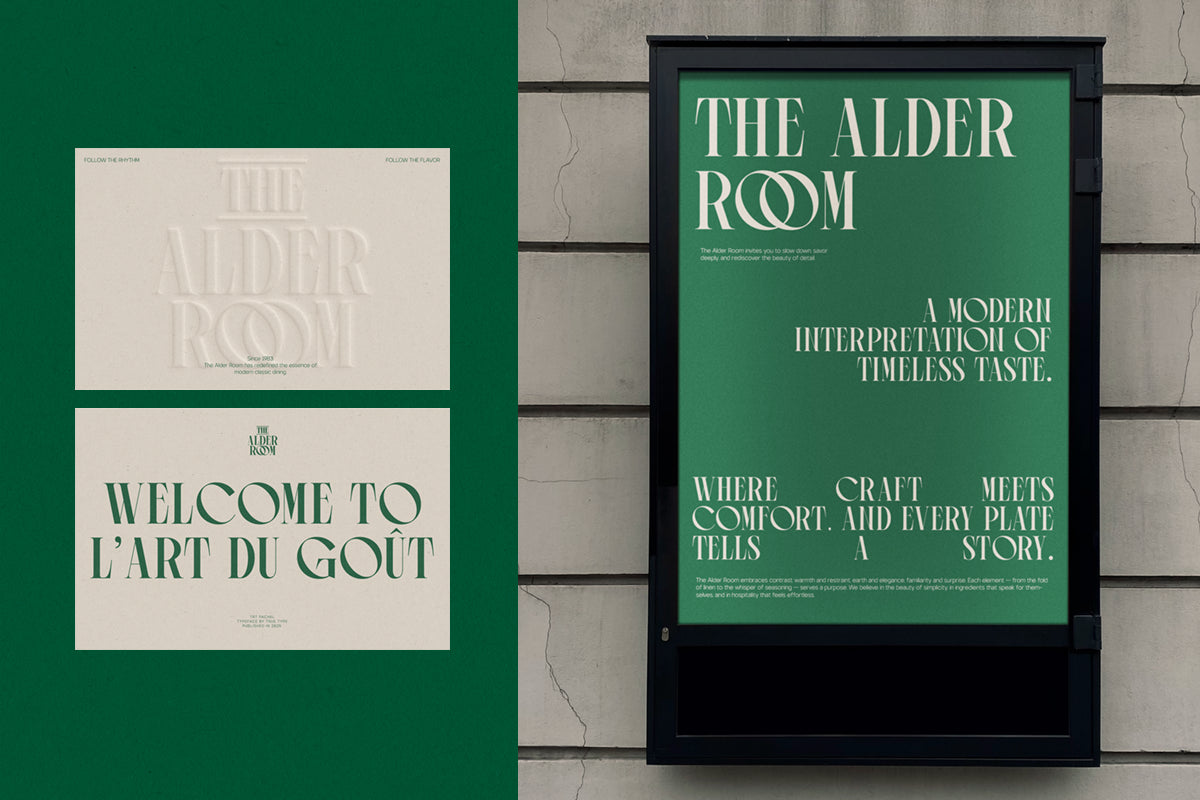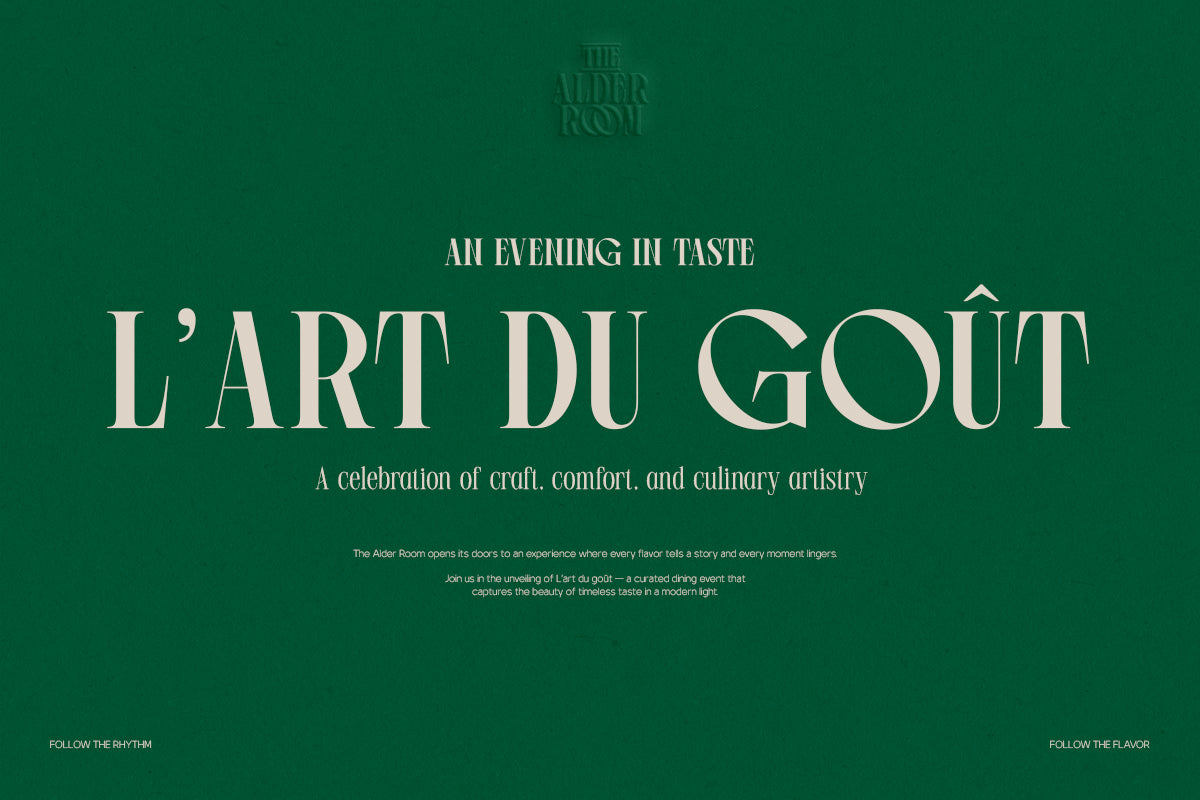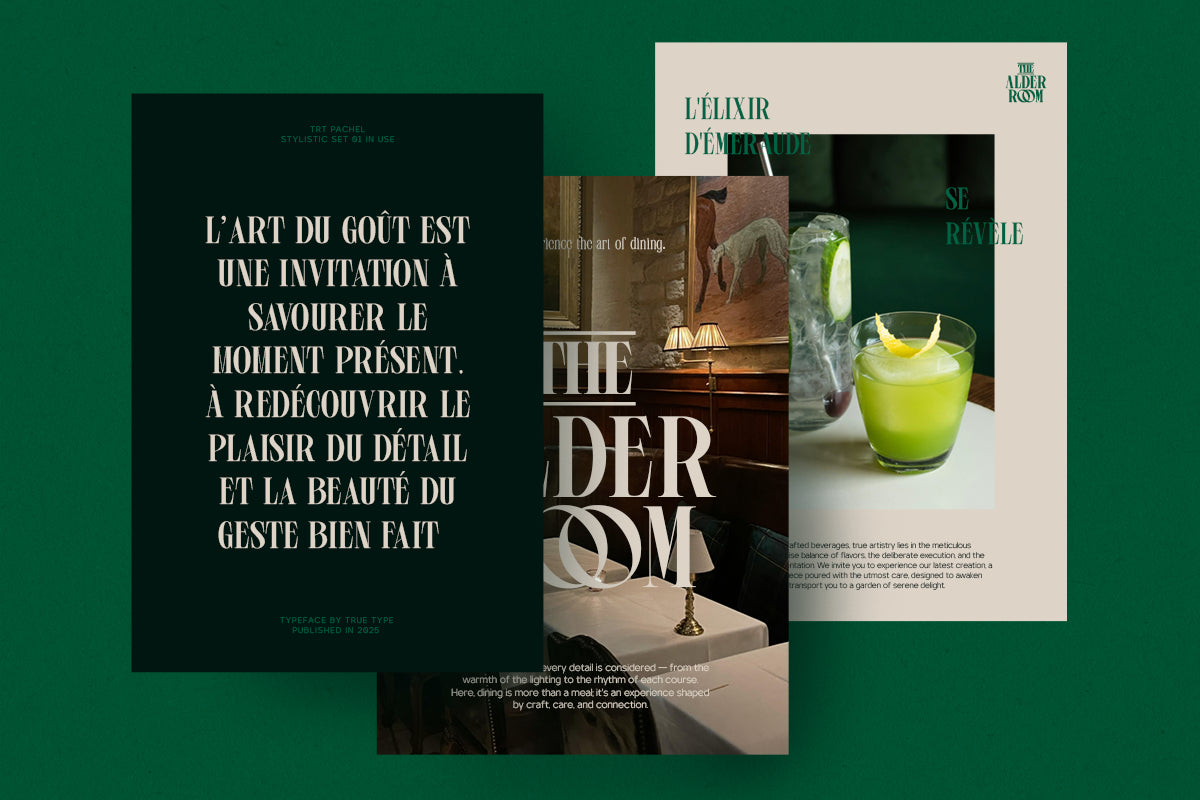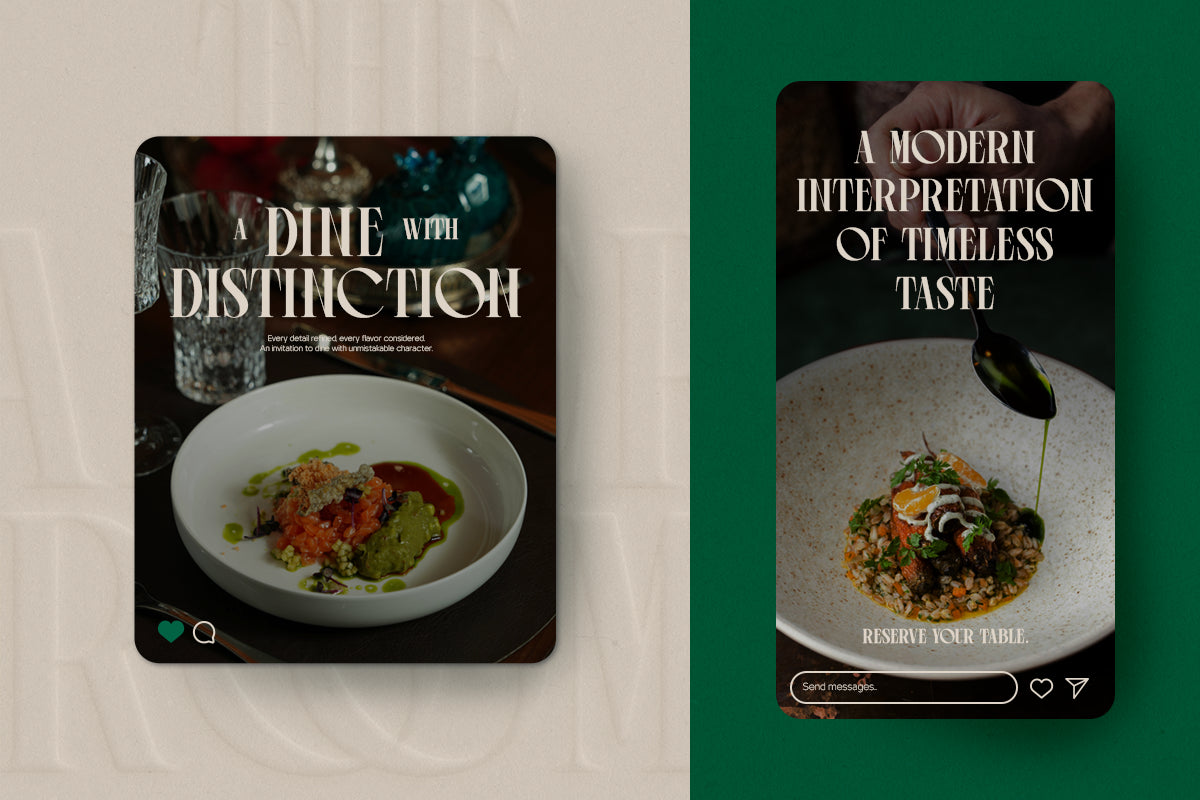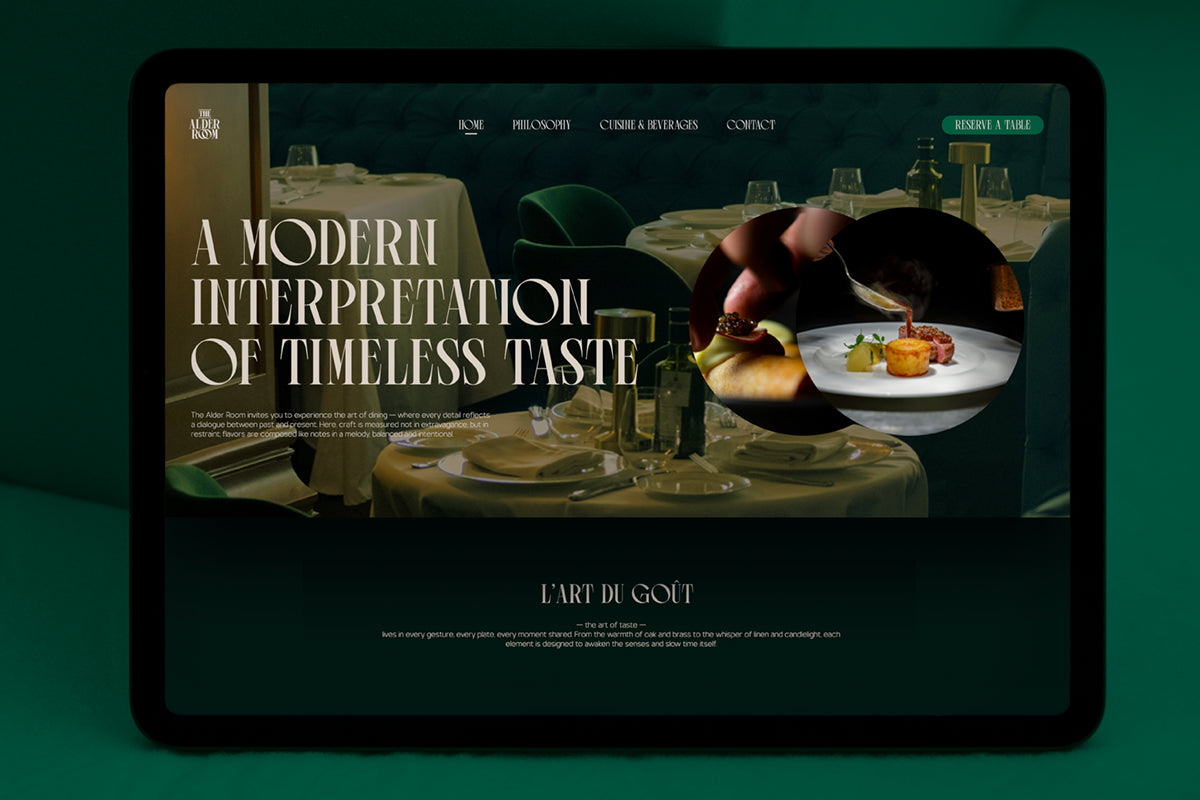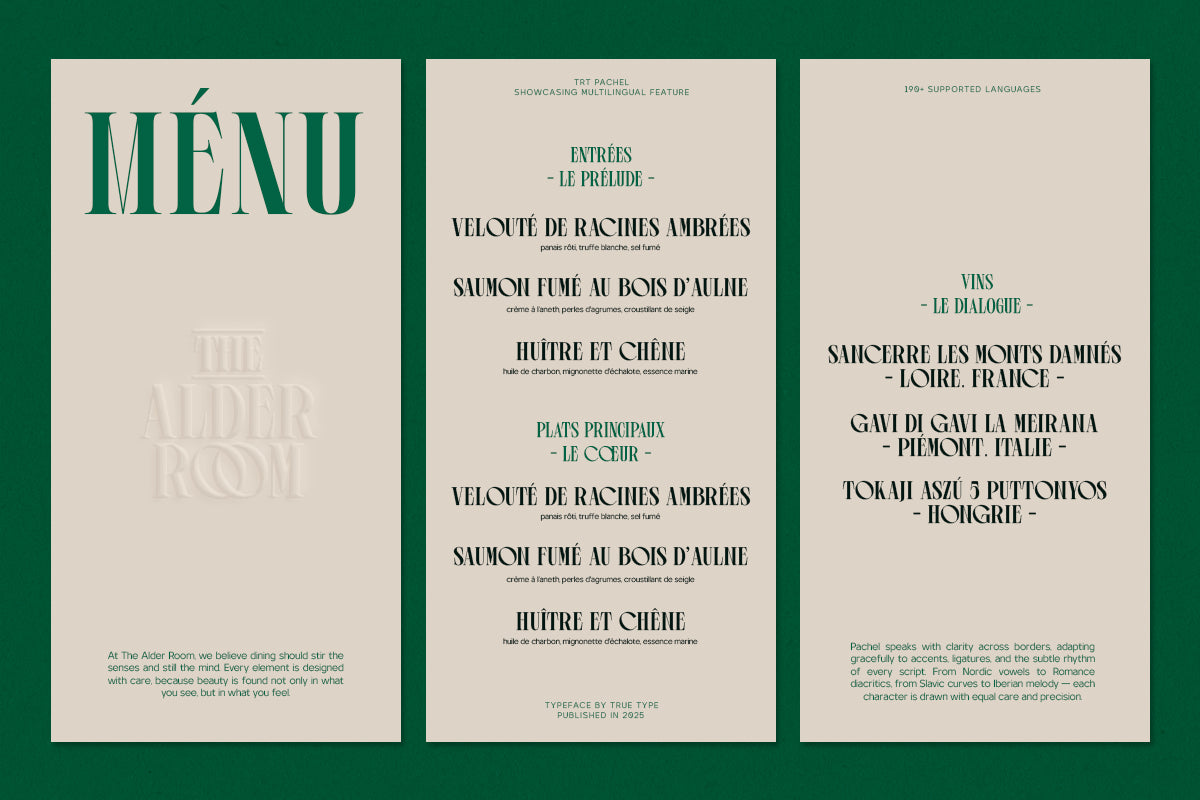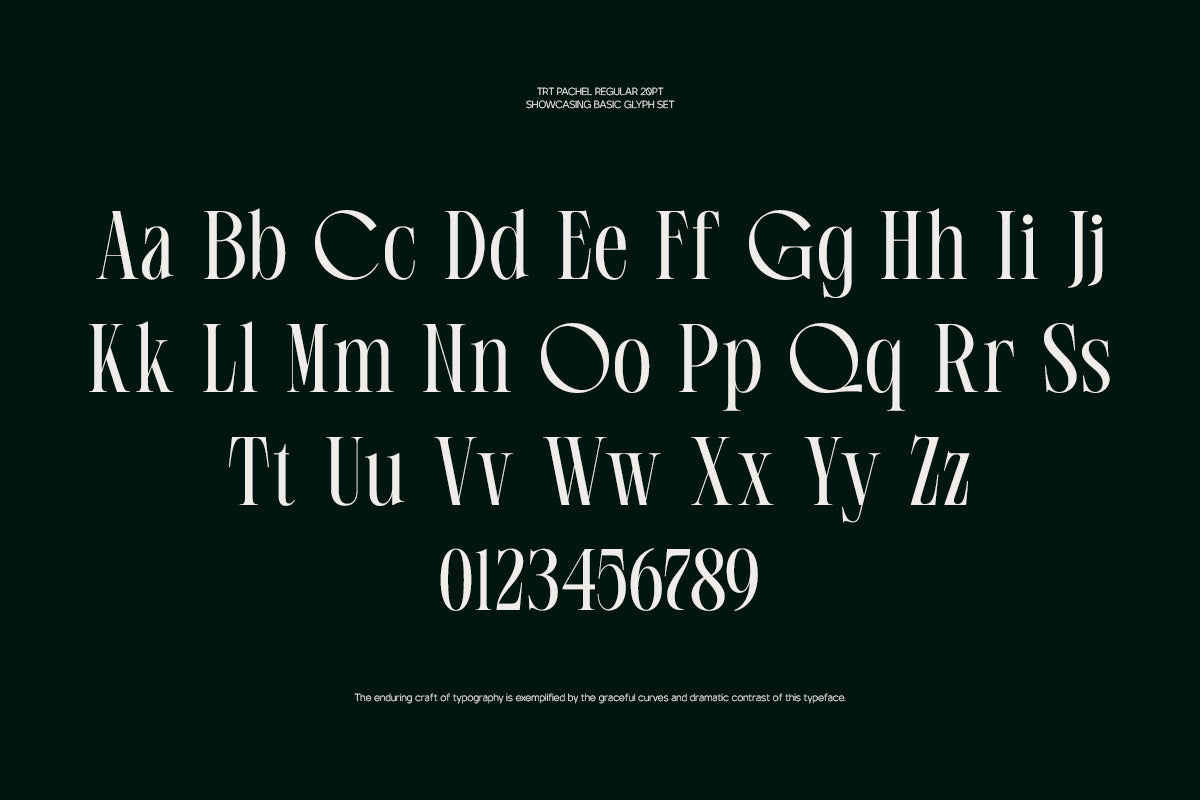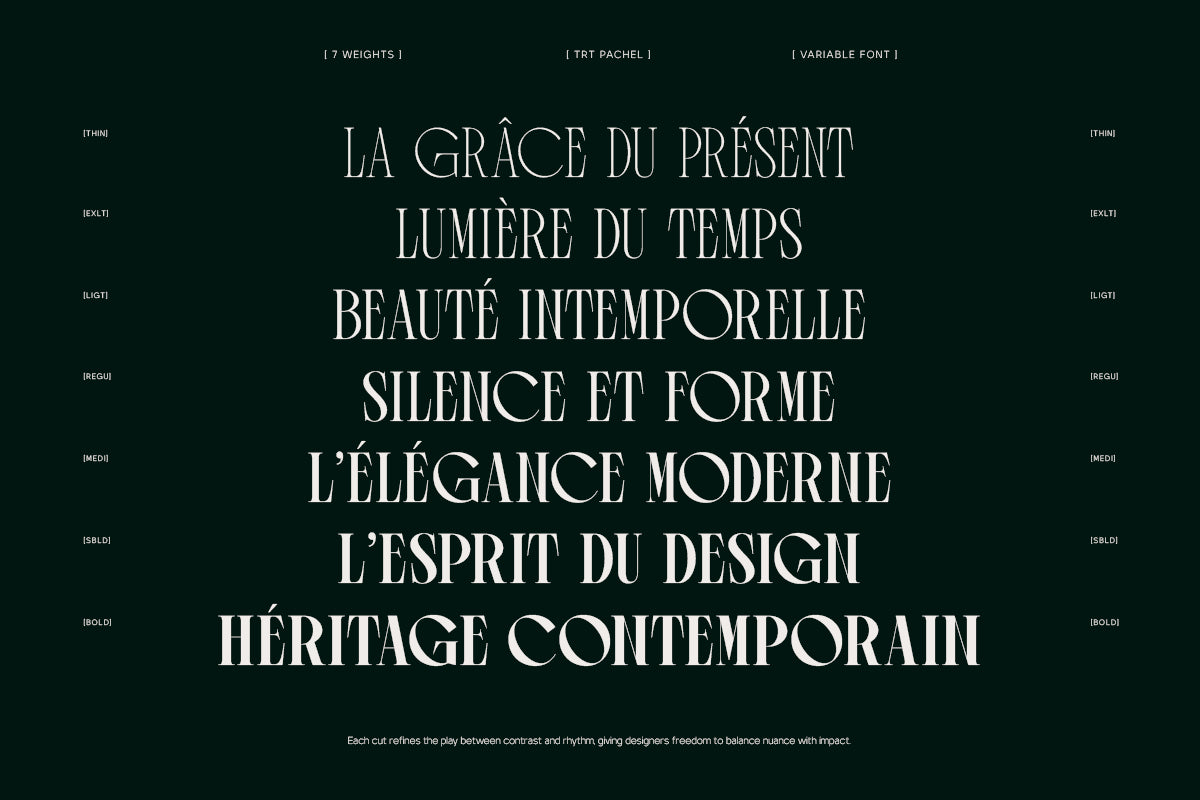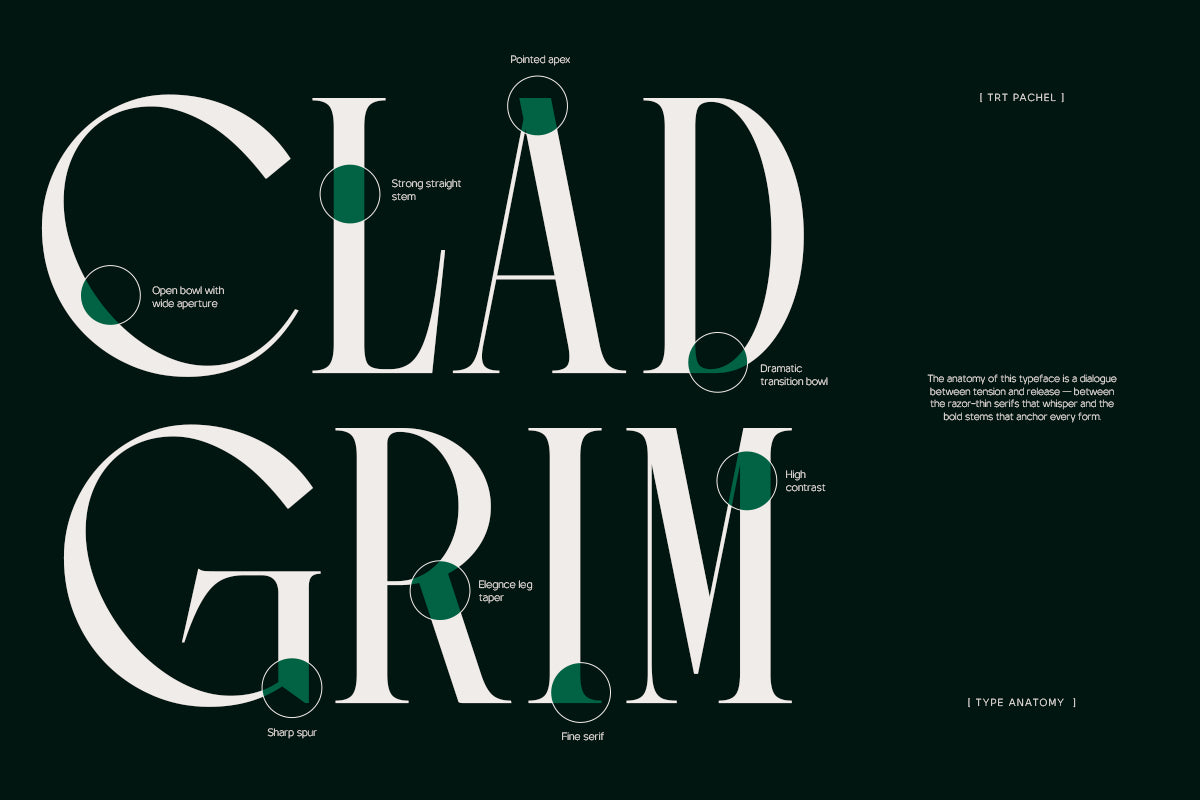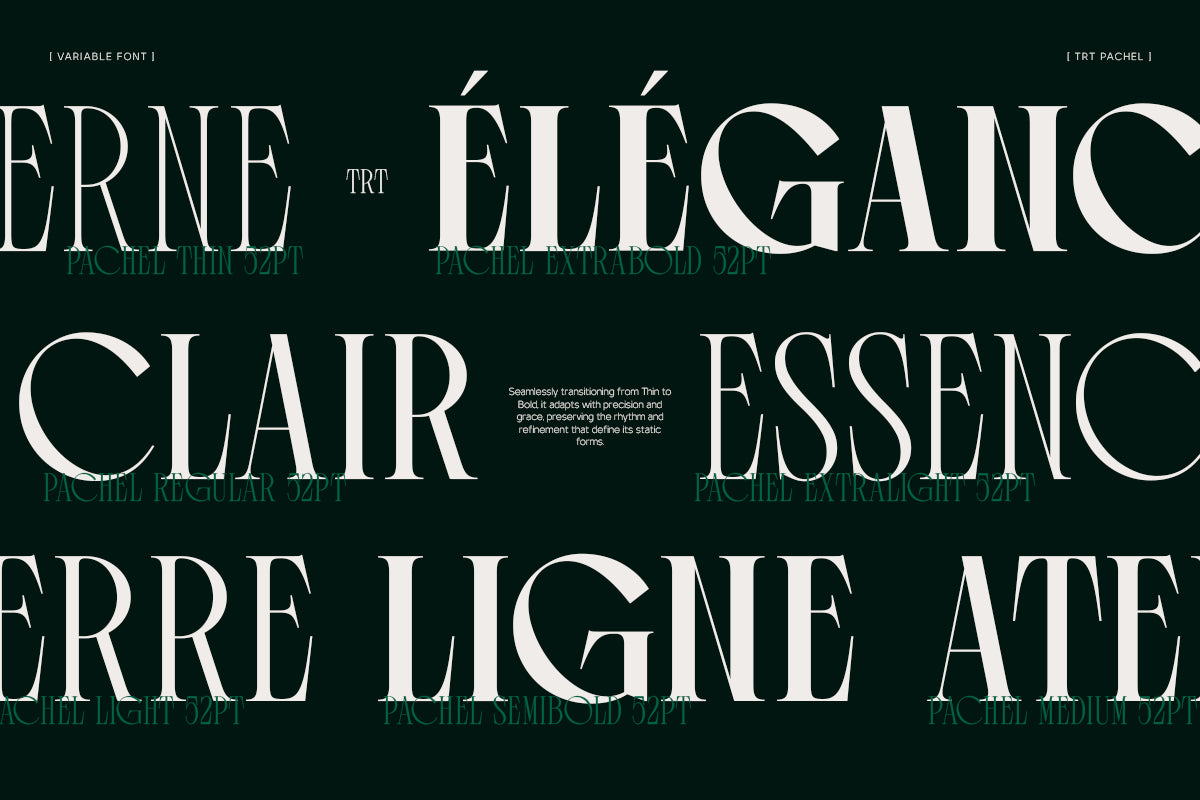
TRT Pachel Luxury Editorial Serif Font
TRT Pachel is a high-contrast luxury serif font designed for editorial layouts and premium branding. It features elegant proportions, refined curves, and expressive ligatures, making it suitable for various applications in sophisticated design.